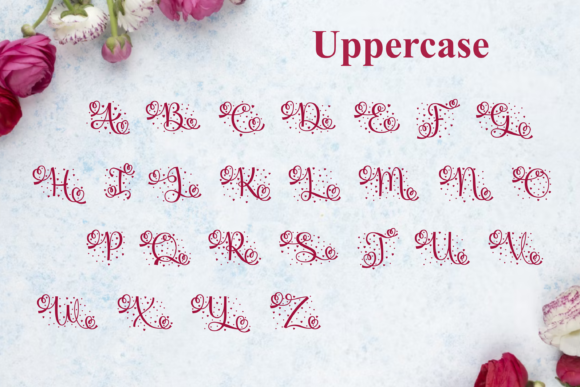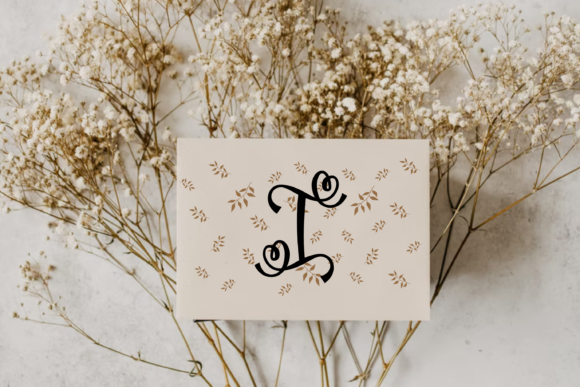
Monogram Love Font
Monogram Love is a gorgeous and distinct display font. No matter the topic, this font will be an incredible asset to your fonts’ library, as it has the potential to elevate any creation.